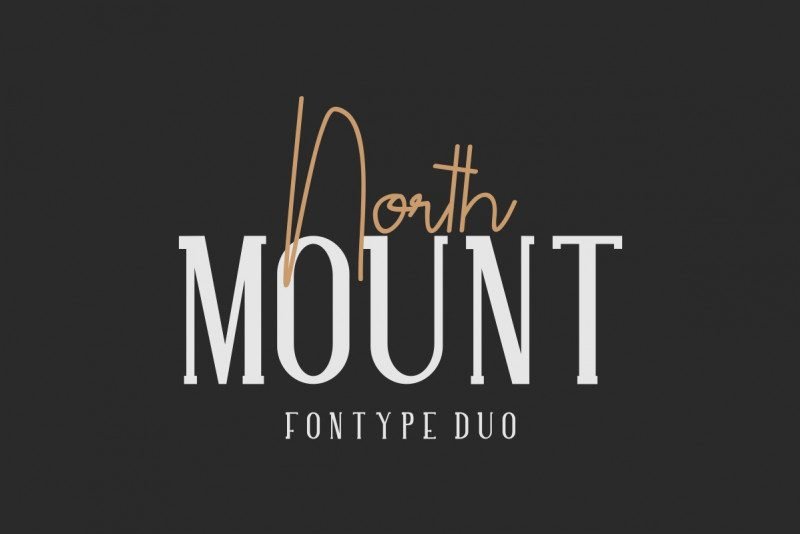
North Mount Font Trio
Hey Everyone, Introducing our newest font : North Mount A TRIO FONT family !
This is a new modern script handwriting , sans serif and outline stroke font. It has feminine yet masculine style font. It has a fresh, elegant, natural and stylish glyph. Will be great for branding, logo, stationery, business card, signage, flyer, brochure etc. There are many industries that is suitable for this font : construction, real estate, services, law firm, salon, photographer, architect, designer, consultant etc